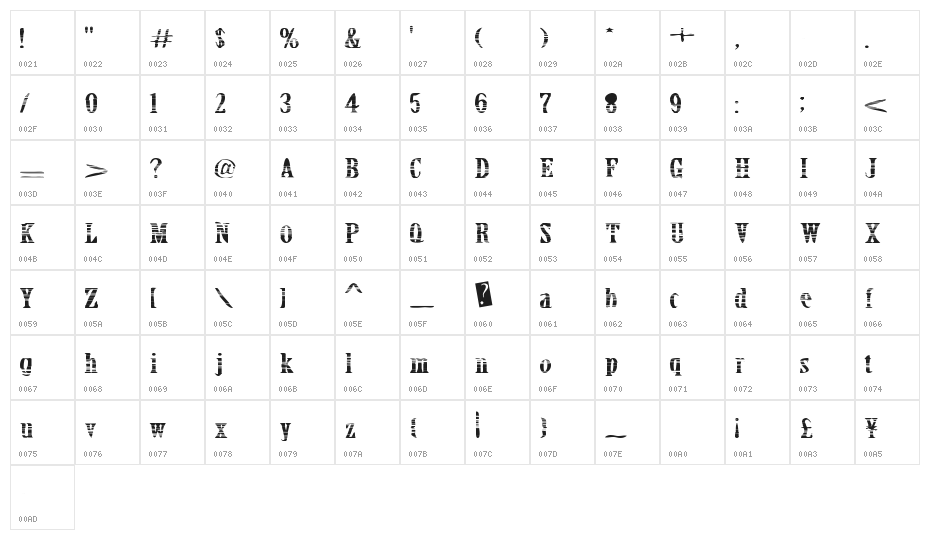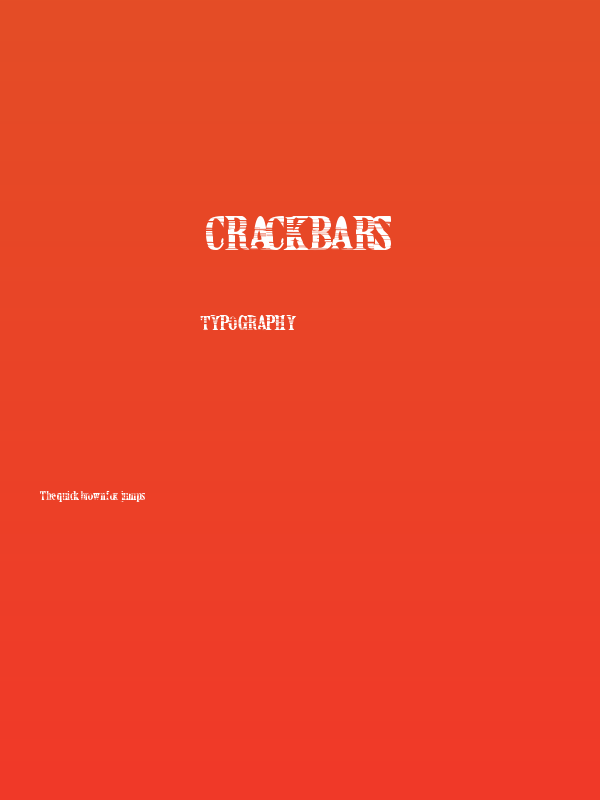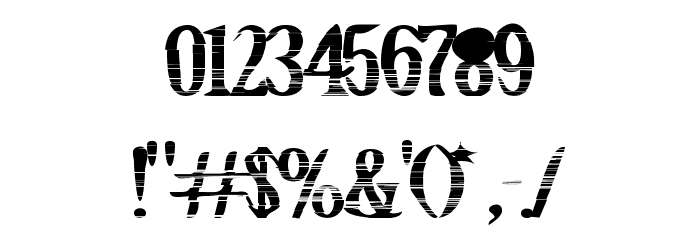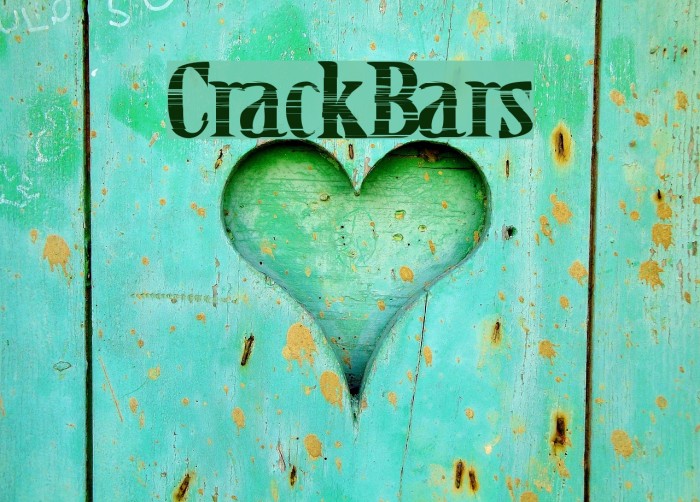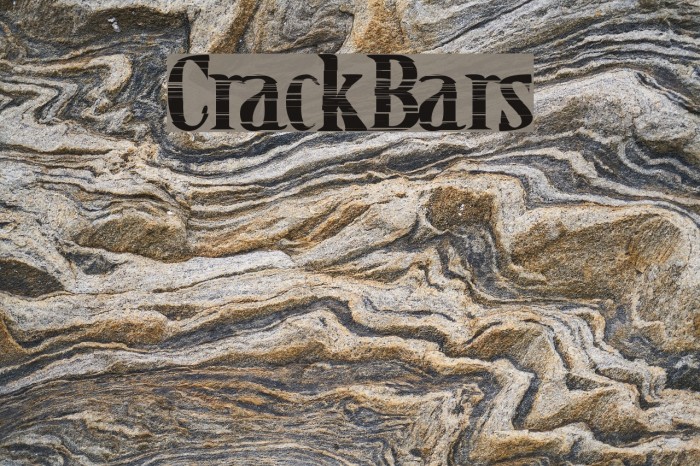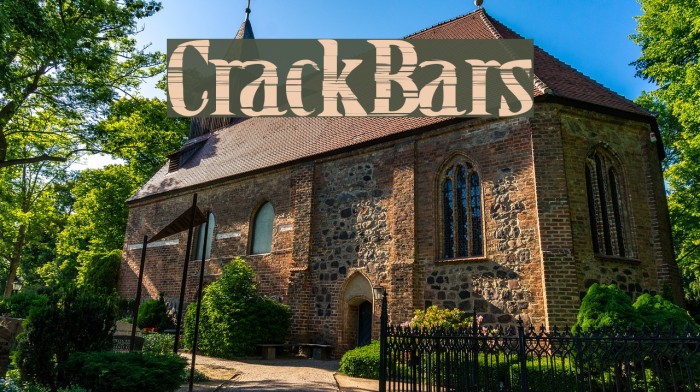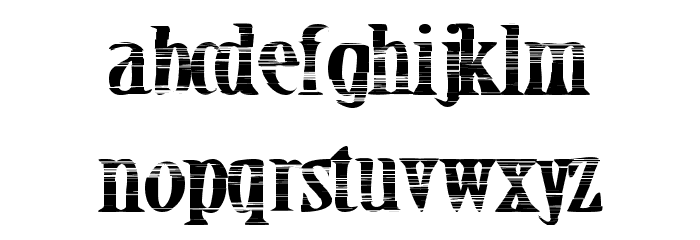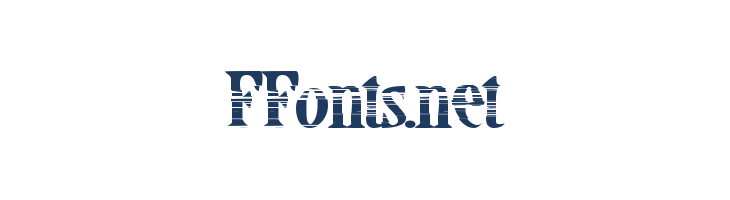
CrackBars Font
CrackBars Description
This font features a bold and striking design with a distressed, cracked appearance. The characters are heavily stylized with horizontal lines running through them, creating a unique visual effect that resembles a glitch or broken screen. The uppercase and lowercase letters maintain a consistent style, while the numbers and special characters follow the same design principles. This font is highly decorative and eye-catching, making it suitable for projects that require a strong visual impact.
CRACKBARS UPPERCASE
CRACKBARS LOWERCASE
CRACKBARS OTHER CHARS